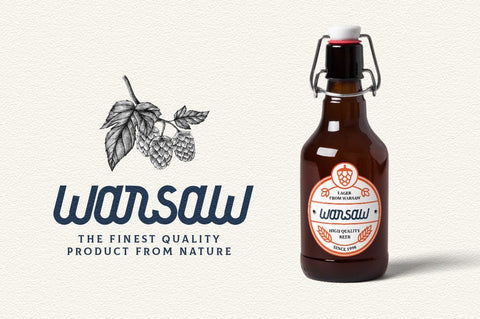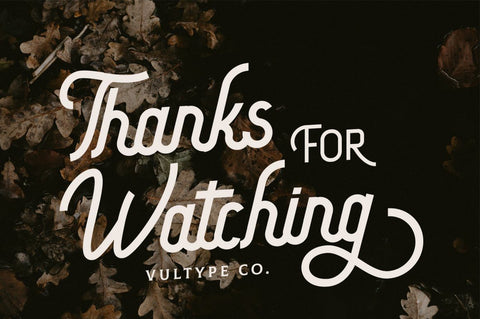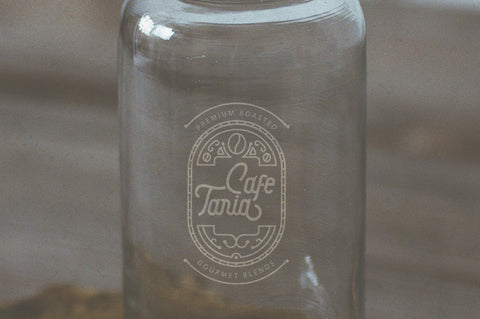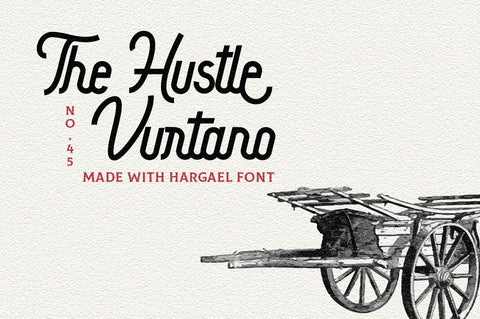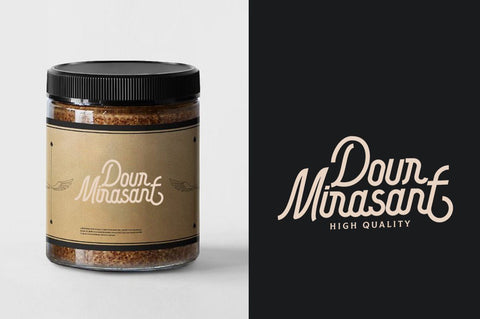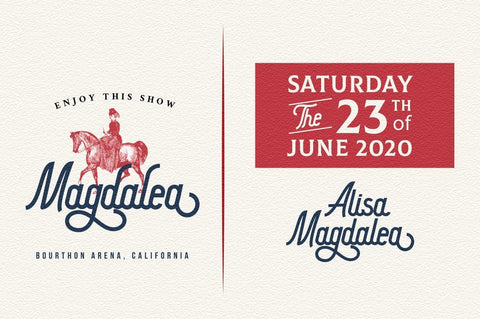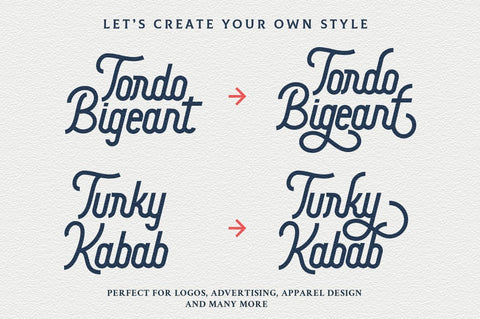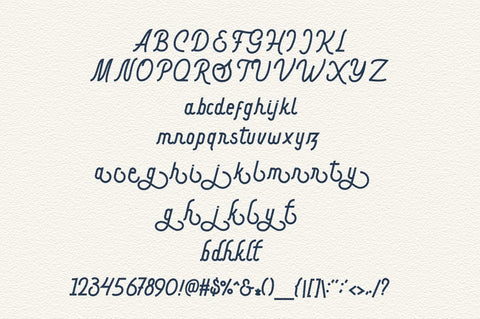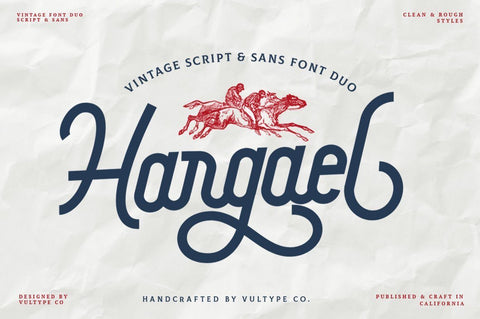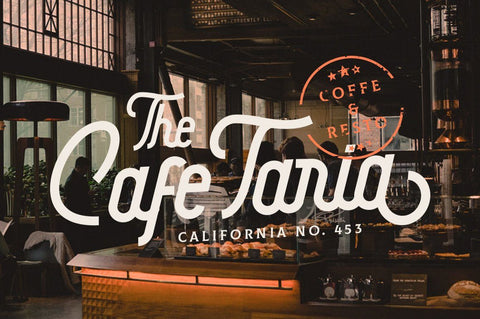
Hargael - Vintage Script Font
Hargael Font Duo included Script & Sans was very inspired from modern vintage and retro style
With font duo that combines two trends (Modern Sans serif and Vintage Script) You'll be seeing this combination a lot more in the design world
All characters have an imperfect shape that gives a natural look in design. It easily cooperating together and perfect for creating the traditional style logos, labels, package design, lettering for t-shirts and much others.
• Upper + Lowercase Letters
• OpenType features
• Multilingual support It also includes a clean version without texture. OpenType features (ligatures and alternates) helps to make your lettering more interesting. Also there is swashes alternate
This font has a vintage feel with styles stamp on each letter. great for Logotype, Branding Design, Vintage Logo Design, Digital Lettering Arts, Retro,brush font, script font, bold script, Vintage lettering, and any vintage design needs.